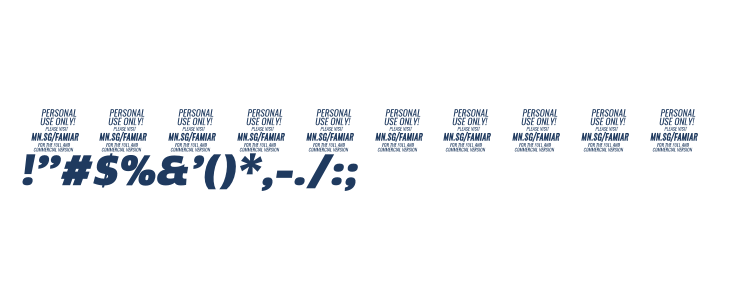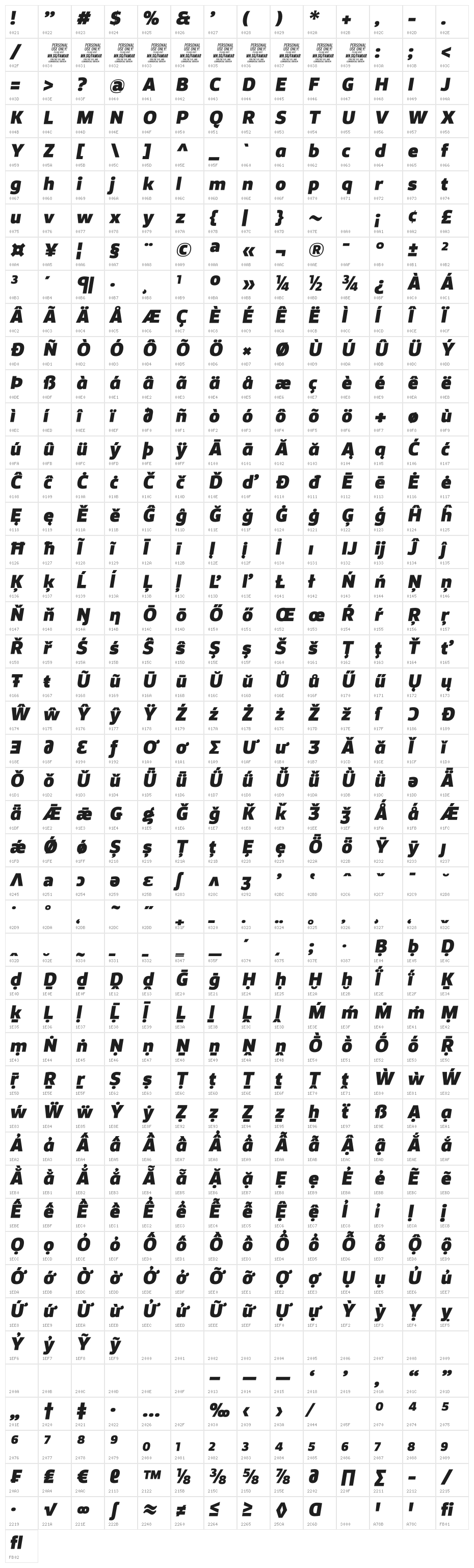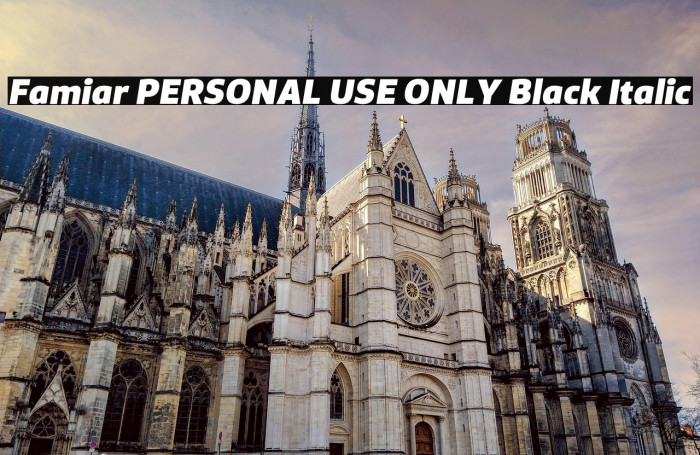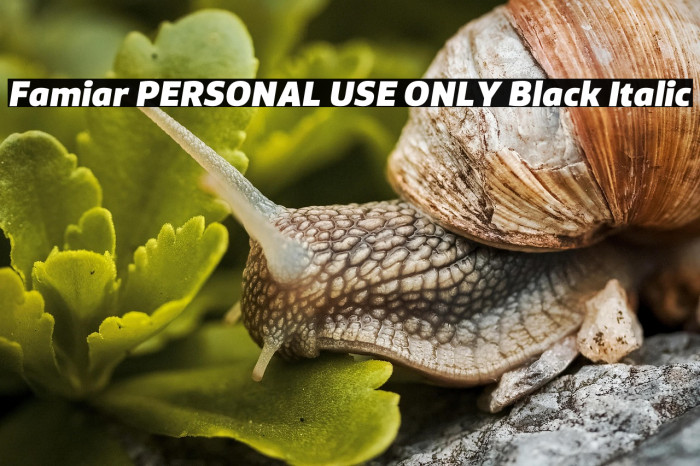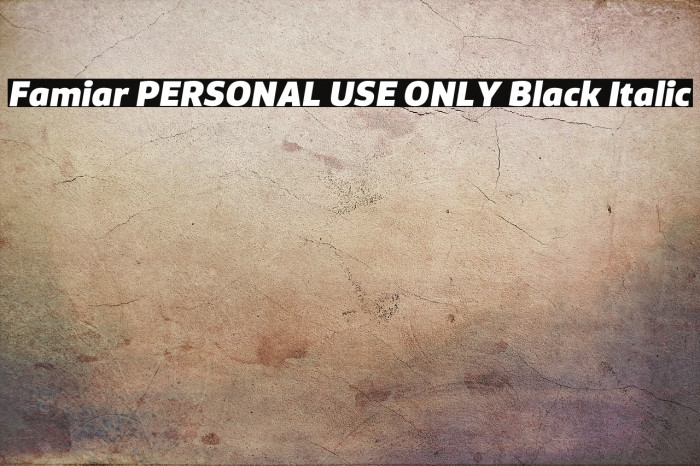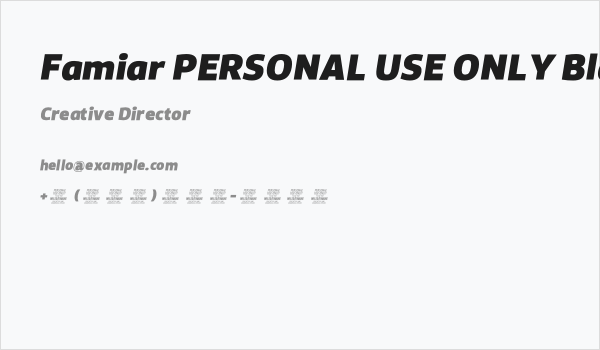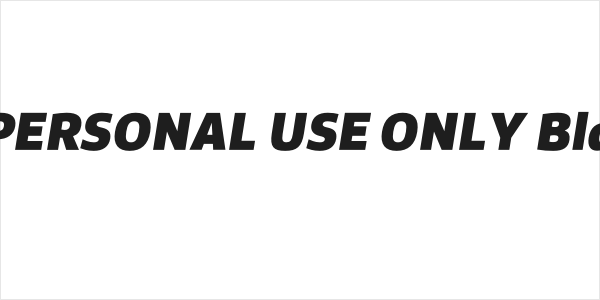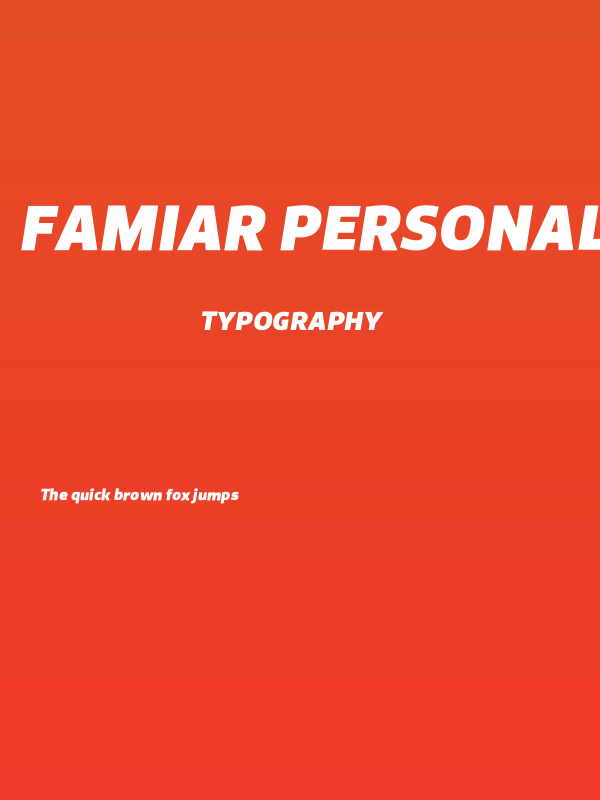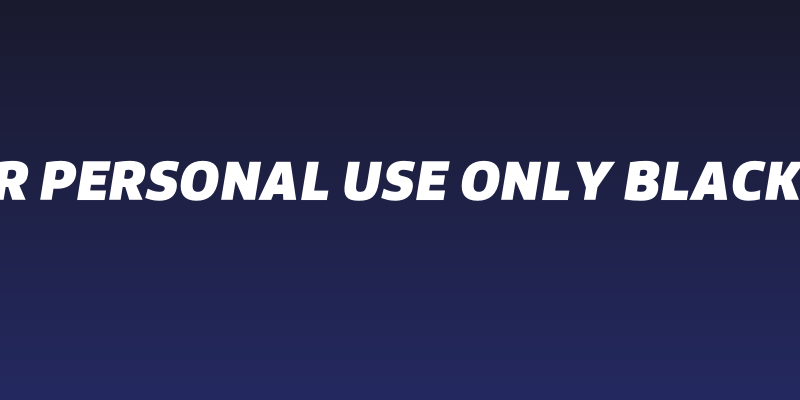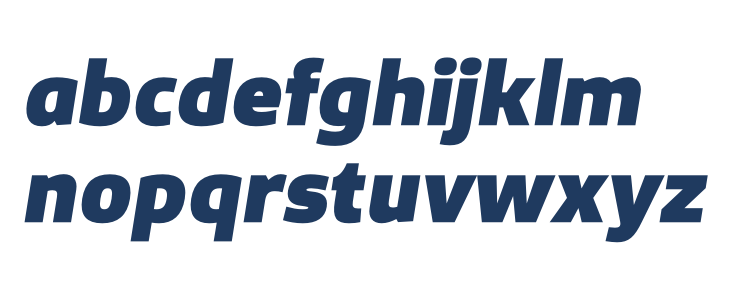
Famiar PERSONAL USE ONLY Black Italic Font
Famiar PERSONAL USE ONLY Black Italic Description
This font features a bold and dynamic style with a strong italic slant, giving it a sense of movement and energy. The characters are thick and robust, making them highly visible and impactful. The uppercase and lowercase letters maintain a consistent weight, ensuring readability while conveying a modern and assertive aesthetic. The numerals and special characters are designed to match the boldness of the letters, providing a cohesive look across all elements. This font is ideal for projects that require a strong visual presence and a contemporary feel.
| Proposed Projects | Ideal for branding, advertising, headlines, and poster design. |